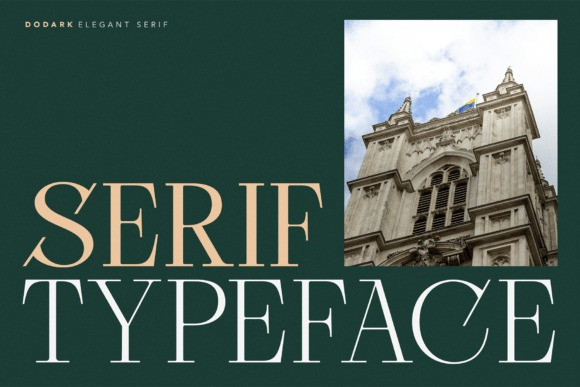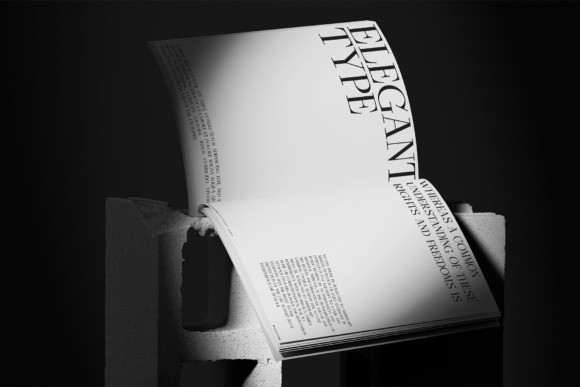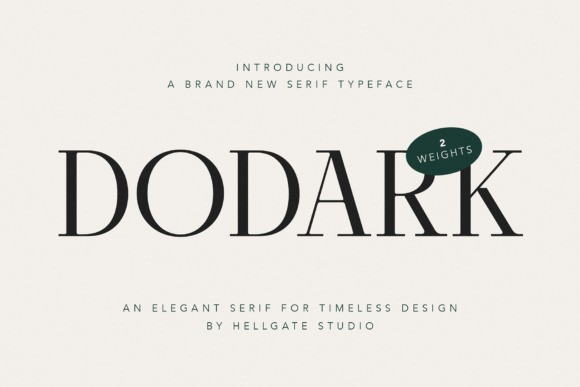
Dodark Font
Dodark Elegant font is the embodiment of class and innovation in typeface design. This font effortlessly merges boldness and strength, making it the ideal choice for a modern theme. Dodark Elegant is easily customizable; modify the text and color to your preference, exploring endless possibilities.